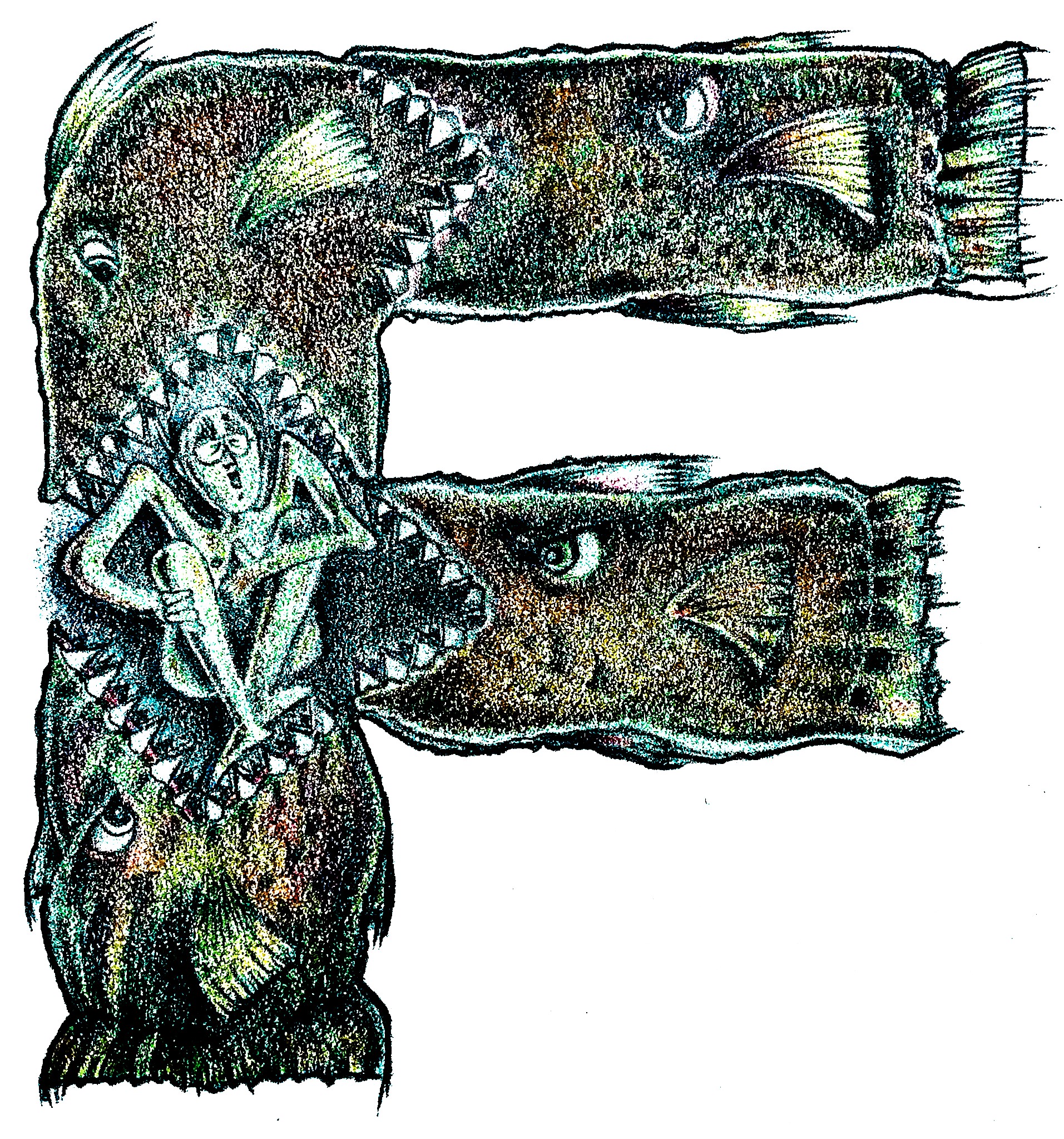
"A's NOT For Four Whatevers": A Revision & Reissue Of An Early Illuminated Alphabet
Composed and illustrated in 2019, each verse of poetaster Ulysses ("Uly") Poe's illuminated nonsense lyric "What A's NOT For," at the time addressed to the poet's neighbor's children, indicated to that pair of anonymous siblings, one at a time in alphabetical order, not only a series of 26 items which A and the other 25 alphabet letters did not initialize but also a second series, every letter of which in each of the 26 multi-word items in that series began with the same key letter.
The initial of each item named was then illuminated in an image created in colored pencils.
Uly's revision of that illuminated (and, it's hoped, now illuminating) ABC first widens the scope of its addressees by speaking to a series of individuals drawn from history and legend whose names begin with their verse's key letter and each of whom has proven instrumental in the creation of one or another invention contributing to the evolution of alphabets.
Additionally, now the items which each letter is shown to be NOT for are also pictured -- in black-and-white line drawings.
"(Tood-) ay is for Amy."
-- Sung by Paul in the Sondheim musical "Company."
A is for Apple (as well as for Ape) --
also Ant and Antilles and Audiotape.
A's been for all those for ages, ma bro,
tho' what A AIN'T for: ain't THAT what ya'll yearn to know...?
Armadillo chips...?
No, Agrippa,* A's NOT for four
armadillo chips...although al-
low'd as afterthought's an Appa-
loosan acrobat:
*Heinrich Cornelius Agrippa von Nettesheim, Renaissance polymath, creates Celestial Alphabet c. 1525.
Bien cuit bacon strips...?
B...? No, Byrom,* B's NOT for four
bien cuit bacon strips. Big Brother's
brief...? Be babysitting's bad boys'
bowler'd bureaucrat:
*British poet John Byrom invents new system of shorthand c. 1715.
Cornucopias...?
C...? No, Cyril,* C's NOT for four
cornucopias...'cuz (candid-
ly) crisp coatings choke cute chocolate-
cover'd crocodiles:
*With his brother, Methodius, St. Cyril is credited with devising Glagolithic alphabet used to transcribe Old Church Slavic in 863.
"Donciad"s Don does...?
D...? No, no, Dee,* D's NOT for four
"Donciad"s Drumpf does. Duets D
does distinguish...? Dartmouth's dapper
dancing discophiles:
*John Dee, court astronomer to Elizabeth I, invents Enochian alphabet c. 1582.
Easter Islanders...?
No, Emmerkar,* E's NOT for four
Easter Islanders. Each earnest
epileptic elf exhibits
elasticities:
*To this legendary Sumerian king (name accented on the second syllable) is ascribed invention of cuneiform c. 2300 BC.
Four-foot faux fox furs...?
F...? No, Franklin,* F's NOT for four
four-foot faux fox furs. Fork'd fins fore-
tell ferocious (fatal...?) feeding-
frenzy fantasies:
*Ben proposes phonetic alphabet based on Latin ABCs while containing additional letters created by him c. 768.
Gibbous garden gnomes...?
No, Gomango,* G's NOT for four
gibbous garden gnomes. Gay gyro-
geeks grab gravity's gynormous
Gs: Go, galivanters!
*Indian language activist Mangel Gomango invents Sorang Sompeng script in 1936.
Hard hats hiding Holmes...?
H, Herr Hill*...? No, no, NOT for four
hard hats hiding Holmes. Hot hands held
high, Huns holler, heartily, "Heil,
Hitler's hierophanters!"
*British stenographer James Hill develops Teeline Shorthand, originally for use by journalists, c. 1968.
Irish Idahoes...?
I...? No, Ibrahim.* NOT for four
Irish Idahoes, if I in-
stead, indeed, imports illumi-
nated isobars:
* Ibrahim Njoya, King of Cameroon, invents Bamum script c. 1910.
Js by Jalen Rose...?
J, Jenticha*...? No, NOT for four
Js by Jalen Rose. Jock Jalen's
joy...? Just jostling jowl-jamm'd jack-o'-
lantern'd jaguars:
*K. B. Jenticha invents Jenticha script for Indian/Nepalese
Sunwar language in 1942. (Js reference jump-shots in basketball.)
Kudus kill'd by Rhodes...?
K, Kukai*...? No, K's NOT for four
kudus kill'd by Rhodes. Kan't (sik) kind
kindergarten kids keep keening
kosher katydids...?
*To Japanese monk Kukai is traditionally ascribed invention of Kana syllabary c. 806 AD.
Lizards' Liebestods...?
L, Le Jeune*...? No, L's NOT for four
lizards' Liebestods. Look! Lanky
lawyer Laughin' Lincoln's left lifts
lofty lilac lids:
*Canadian J-M-R Le Jeune creates Chinook writing in 1893.
Macaroni shapes...?
M...? No, Mr. Morse*! NOT for four
macaroni shapes. Mere mugging --
mostly (maybe) miming mad mal-
icious malcontents:
*American inventor S. F. B. Morse invents code named after himself.
Nostradamus napes...?
No, Nurhaci.* N's NOT for four
Nostradamus napes. Nerds nearly
never notice nice new neighbor-
ly non-residents:
*This Manchurian king (or his translators Erdeni and Gagai...?) invents Manchu alphabet in 1599.